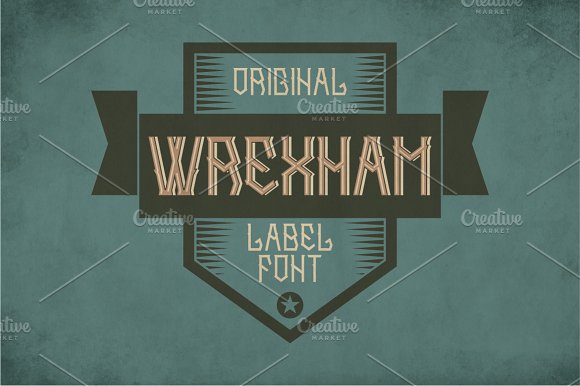
Wrexham Vintage Label Typeface
Introducing a vintage look label typeface named ” Wrexham”. It’s made in strong and vintage label style. Typeface is good viewed on any labels design.